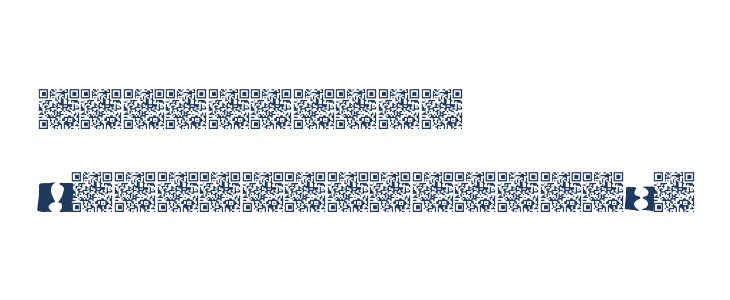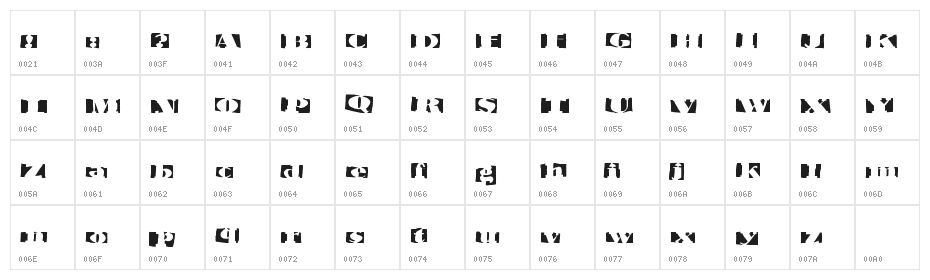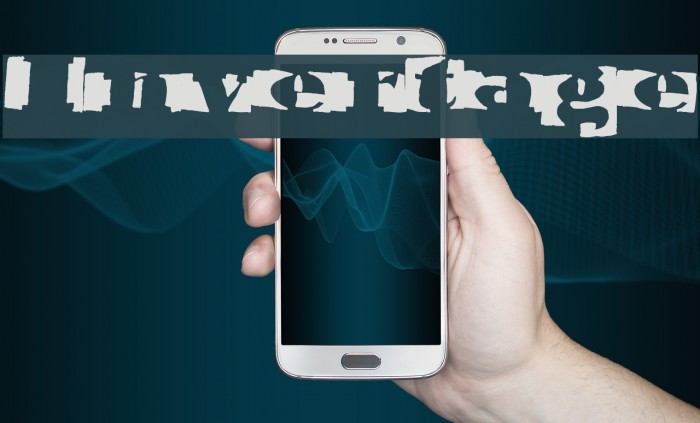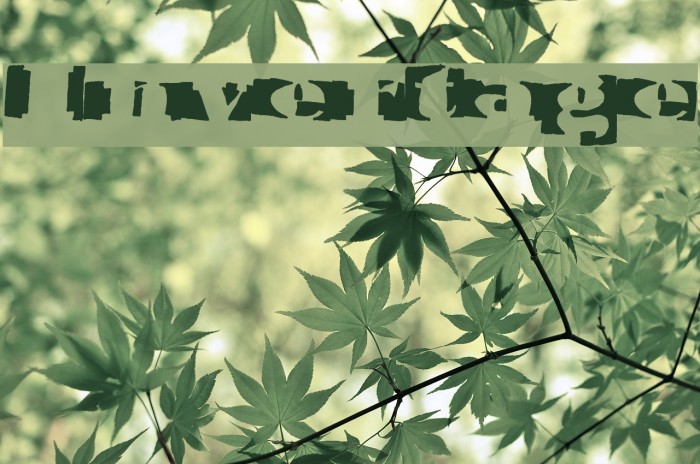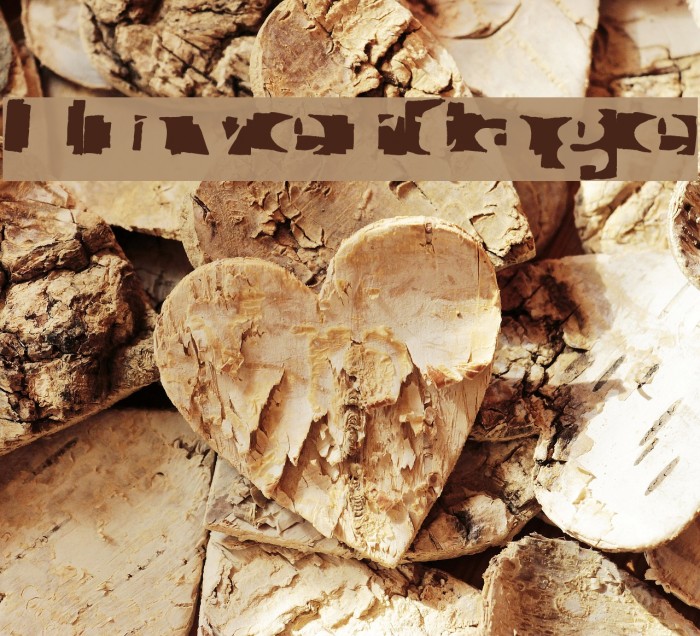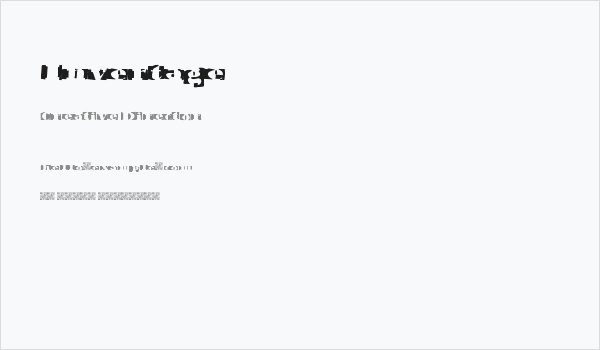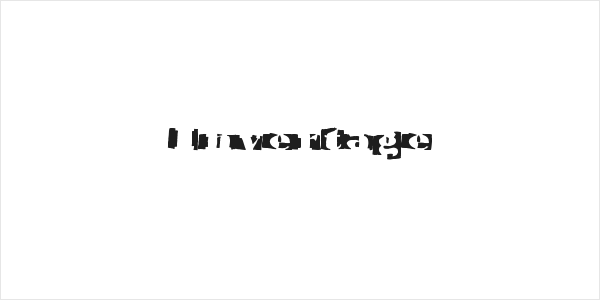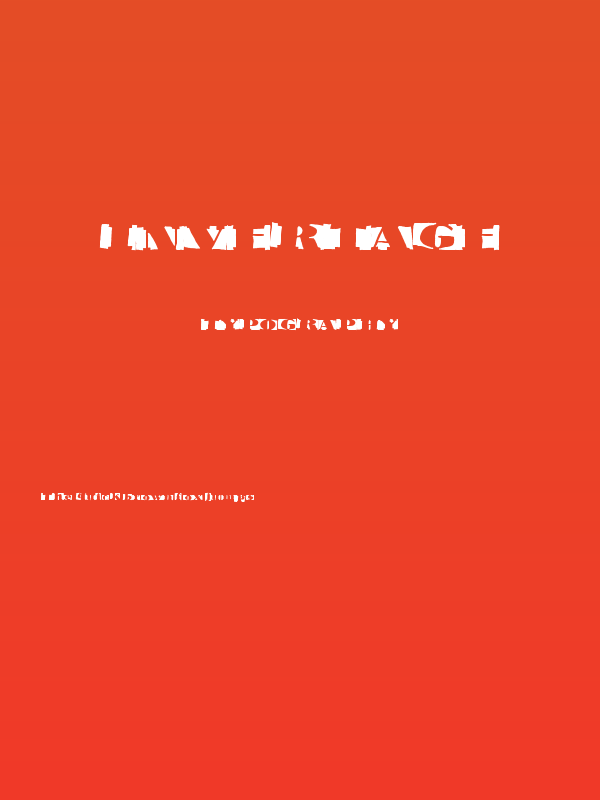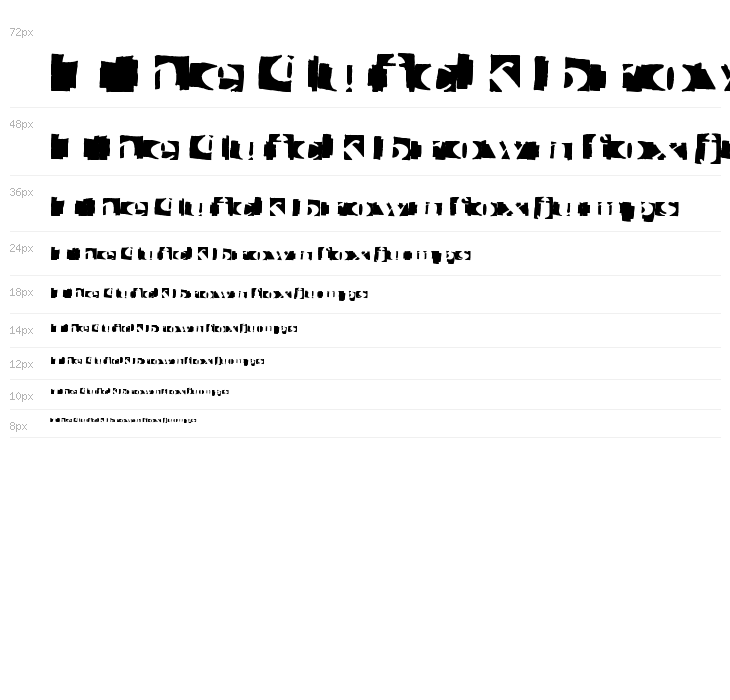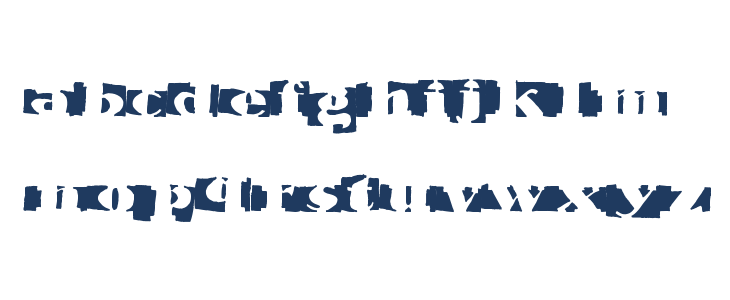
Invertage Font
Invertage Description
This font features a highly distorted and abstract style, with characters that appear fragmented and irregular. The design gives an impression of a glitch or digital error, making it visually striking and unique. Each letter is composed of bold, black shapes that form the basic structure of the alphabet, yet they are intentionally disrupted, creating a chaotic and artistic appearance. The font's unconventional style is likely to capture attention and evoke a sense of modern digital art. It is not suitable for body text due to its complexity and lack of readability but can be used effectively in creative projects that require a bold statement.
| Use Case | Logos, Headlines |
| Proposed Projects | Ideal for digital art, album covers, posters, and experimental design projects. |